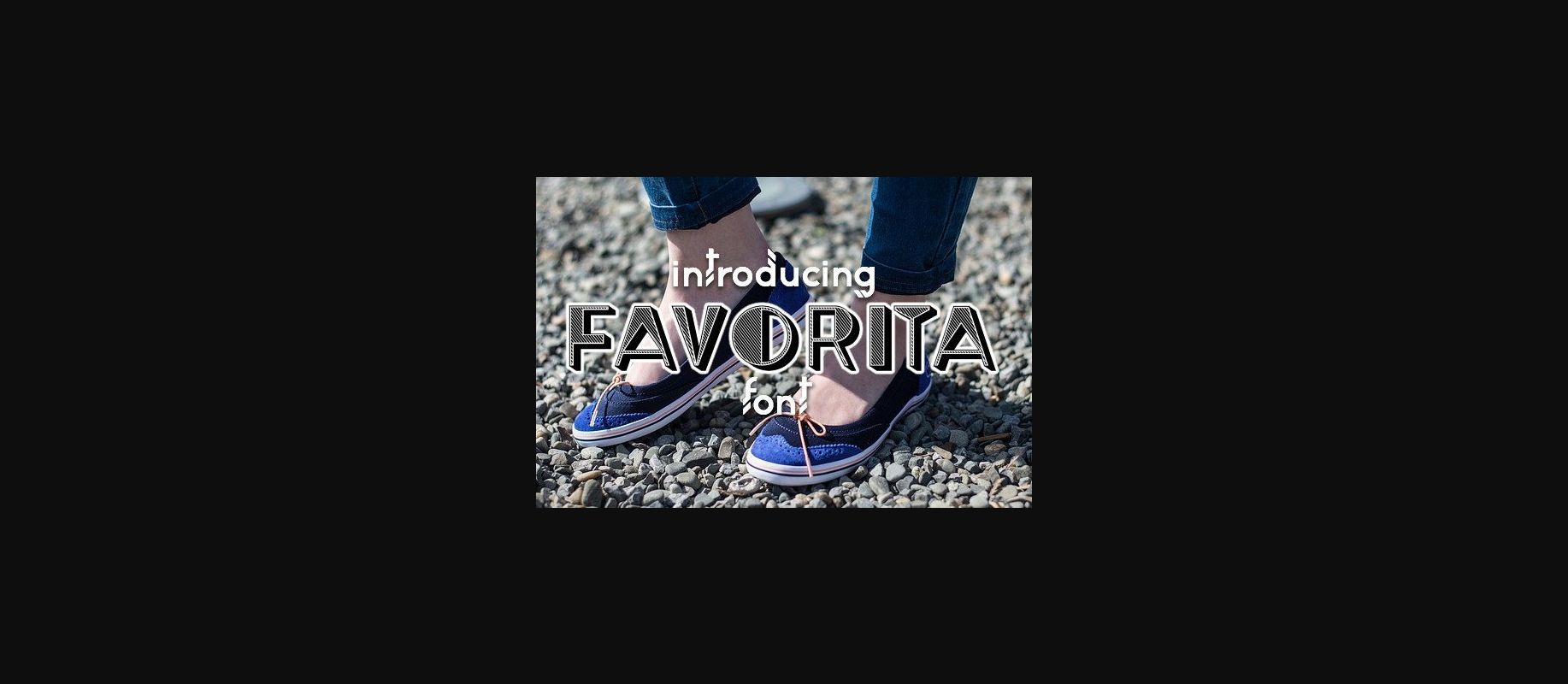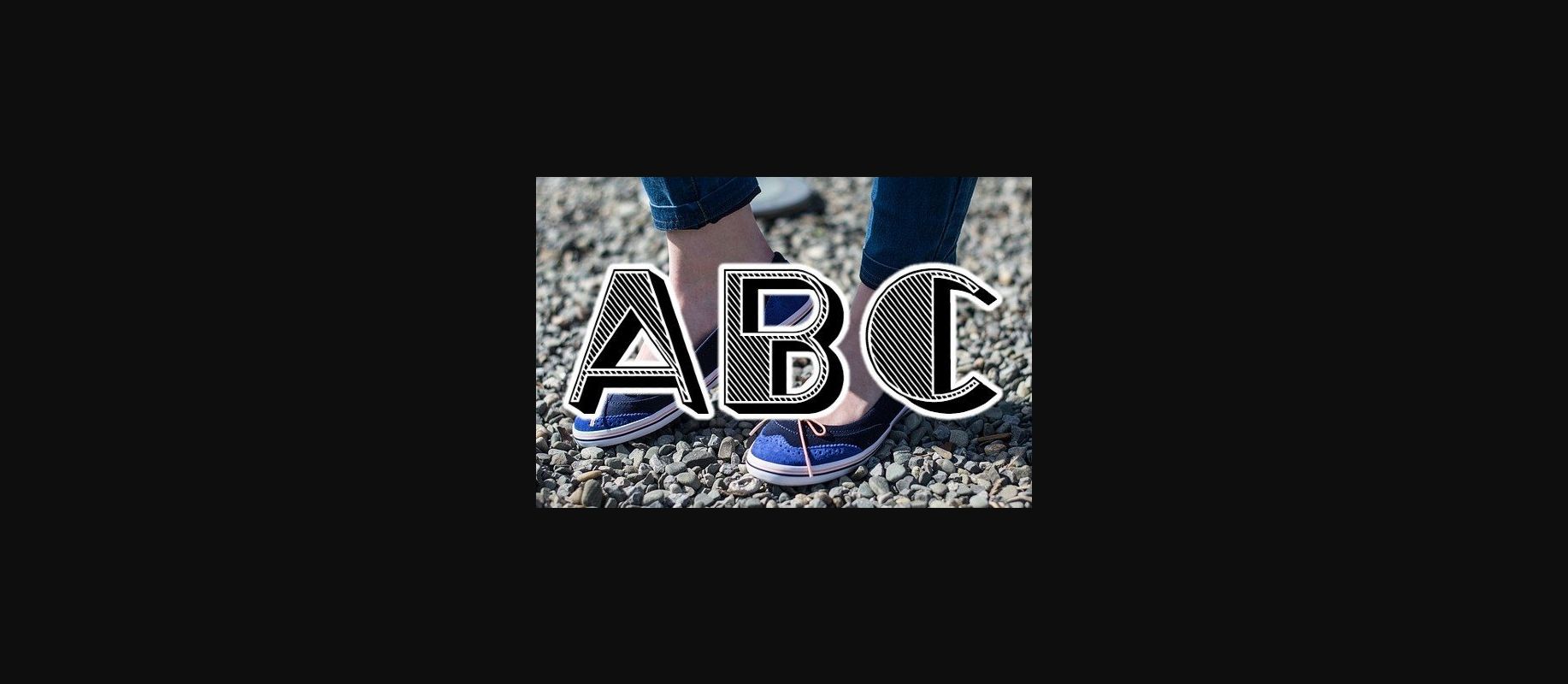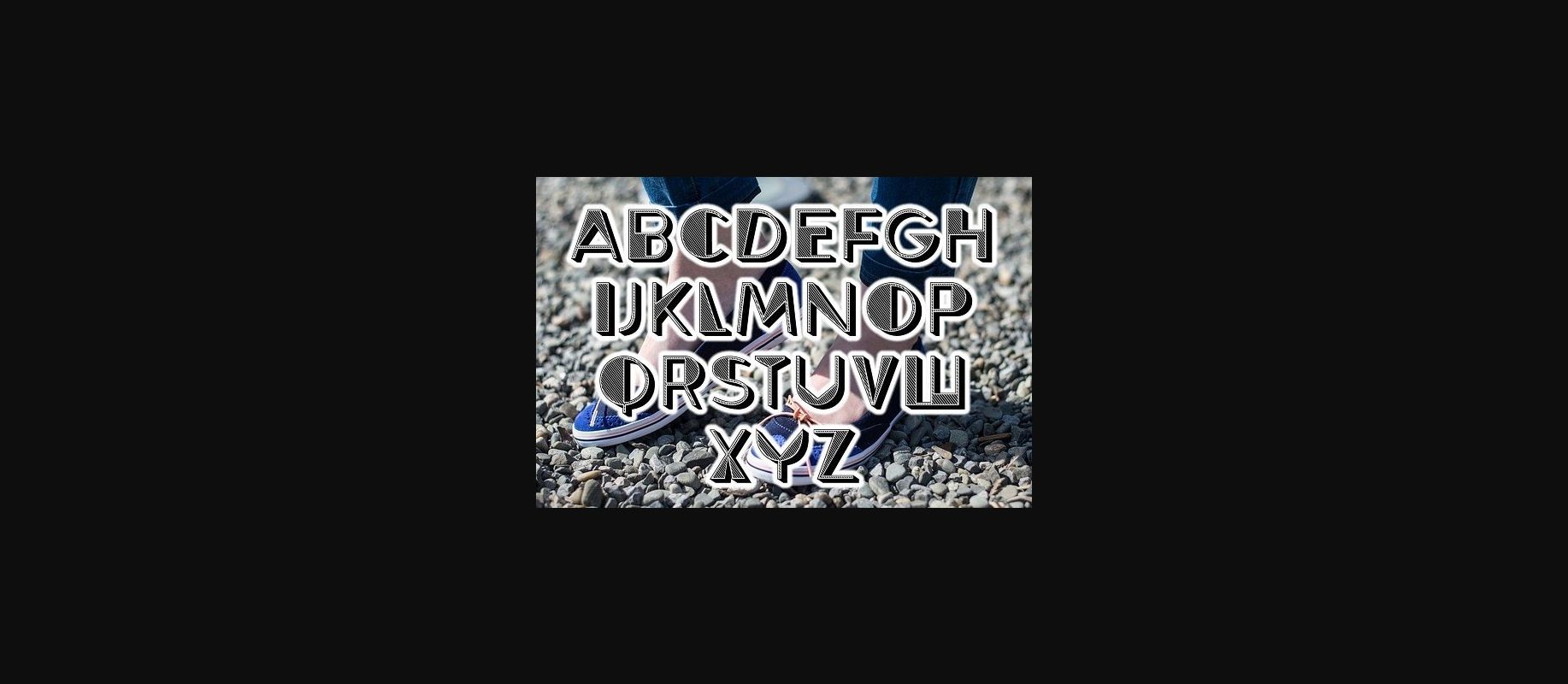
Favorita Font
About Favorita Font
Favorita is an elegant decorative typeface that will look awesome on any of your designs. Use this font on posters, flyers, and shirts.